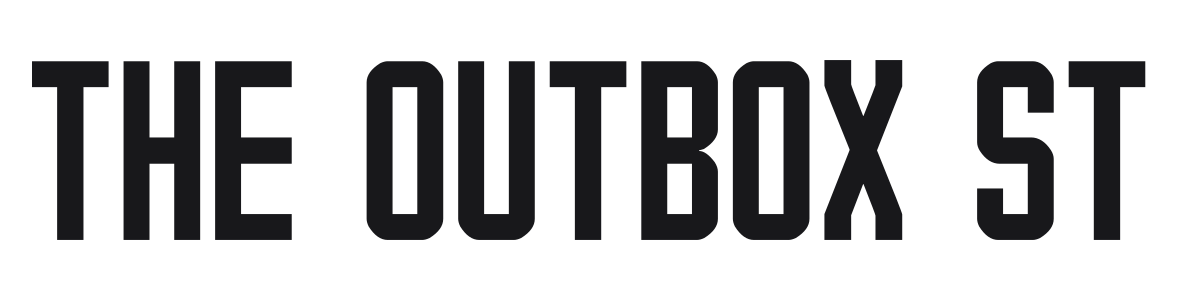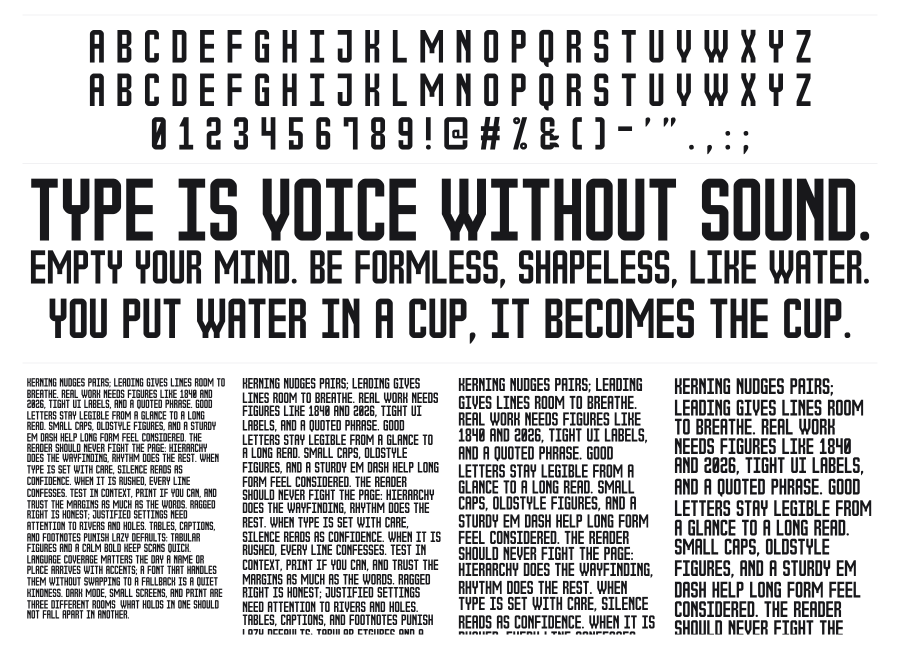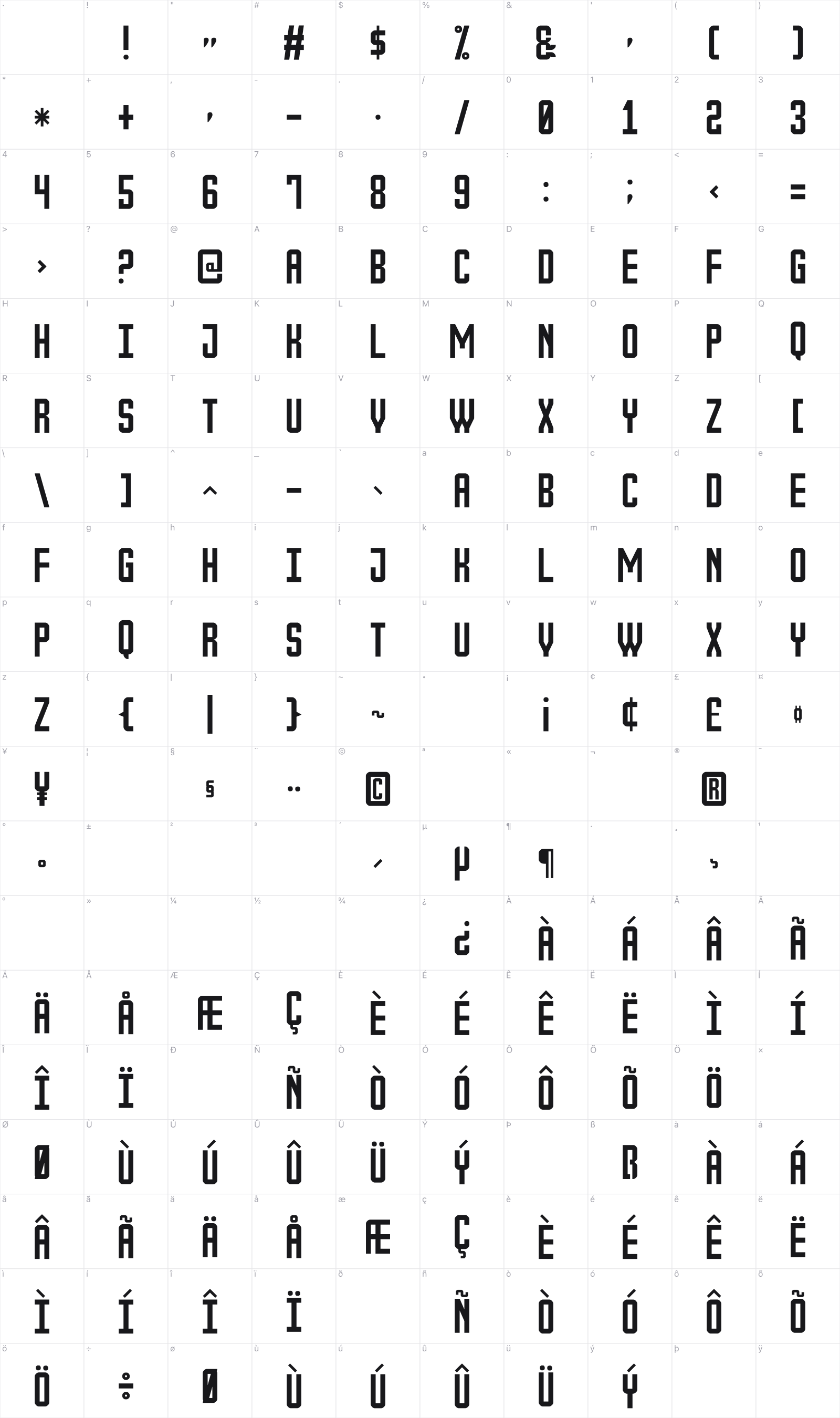
The Outbox St
The Outbox St is a bold condensed sans-serif with a squared, grid-built structure and flat terminals that give it a stencil-like, institutional feel. The near-monoweight strokes and extreme condensing create a dense wall of type that commands attention at large sizes. It channels mid-century sports lettering and industrial signage with a clean, modern consistency.